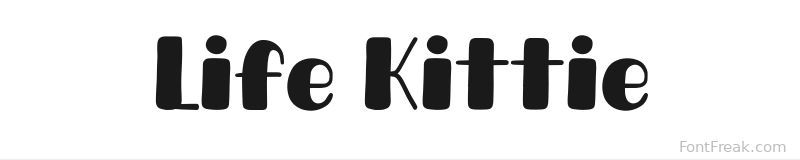
Life Kittie
Life Kittie by Syaf Rizal is a distinctive display font that captures a playful yet sophisticated essence. As part of the decorative category, this font showcases bold, rounded letterforms that create an inviting and whimsical atmosphere. The stroke weight is consistent, providing a sturdy appearance while maintaining a sense of friendliness. The spacing between characters is well-balanced, allowing for easy readability, which makes it suitable for various design contexts. The font's unique personality is enhanced by its slightly exaggerated curves and playful proportions, making it an eye-catching choice.
This font is ideal for a variety of creative applications. It can be effectively used for wedding invitations, where its charming design adds a touch of elegance and warmth. Additionally, Life Kittie works wonderfully for children's book covers, capturing the imagination of young readers with its friendly appearance. Restaurant menus can also benefit from this font, as it imparts a casual yet stylish vibe, making dishes seem more appealing. For graphic designers and content creators, Life Kittie font free download offers a fresh option for branding projects or promotional materials that aim to stand out.
The target audience for this font includes graphic designers, small business owners, and anyone looking to add a unique flair to their projects. Whether for print or digital designs, Life Kittie provides versatility and charm that resonates with a wide range of viewers.
In conclusion, Life Kittie stands out due to its playful design and strong visual presence, making it an excellent choice for projects that require a lively and engaging typeface. With its unique characteristics and diverse use cases, this font is sure to leave a lasting impression on any audience.